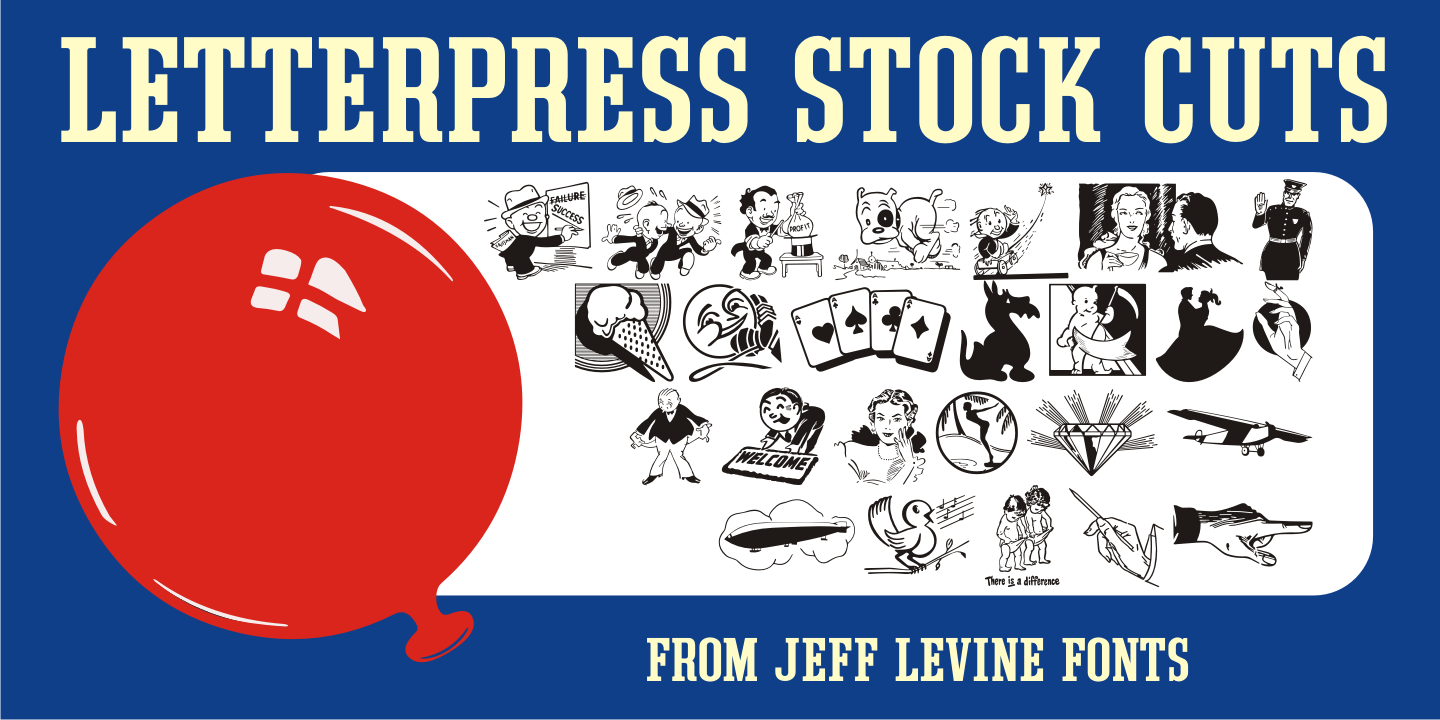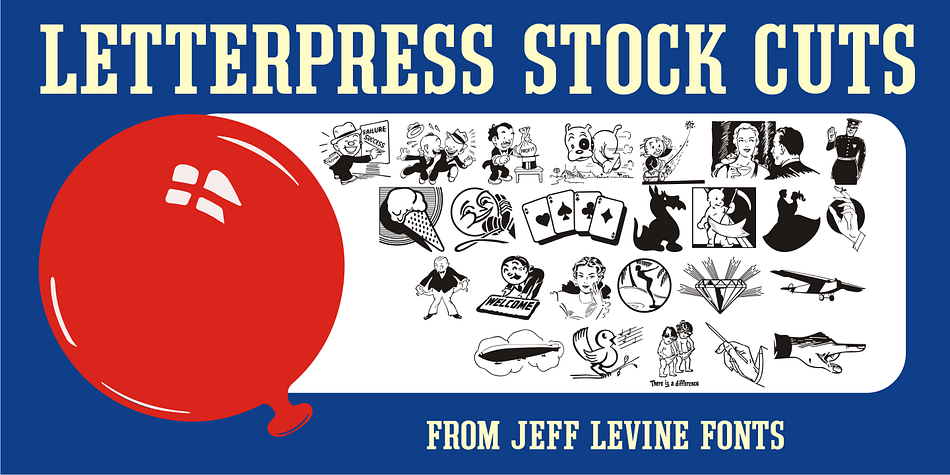
Letterpress Stock Cuts JNL is a dingbat font published by Jeff Levine Fonts.
Letterpress Stock Cuts JNL is another assemblage of classic cartoons and illustrations re-drawn from vintage source material.